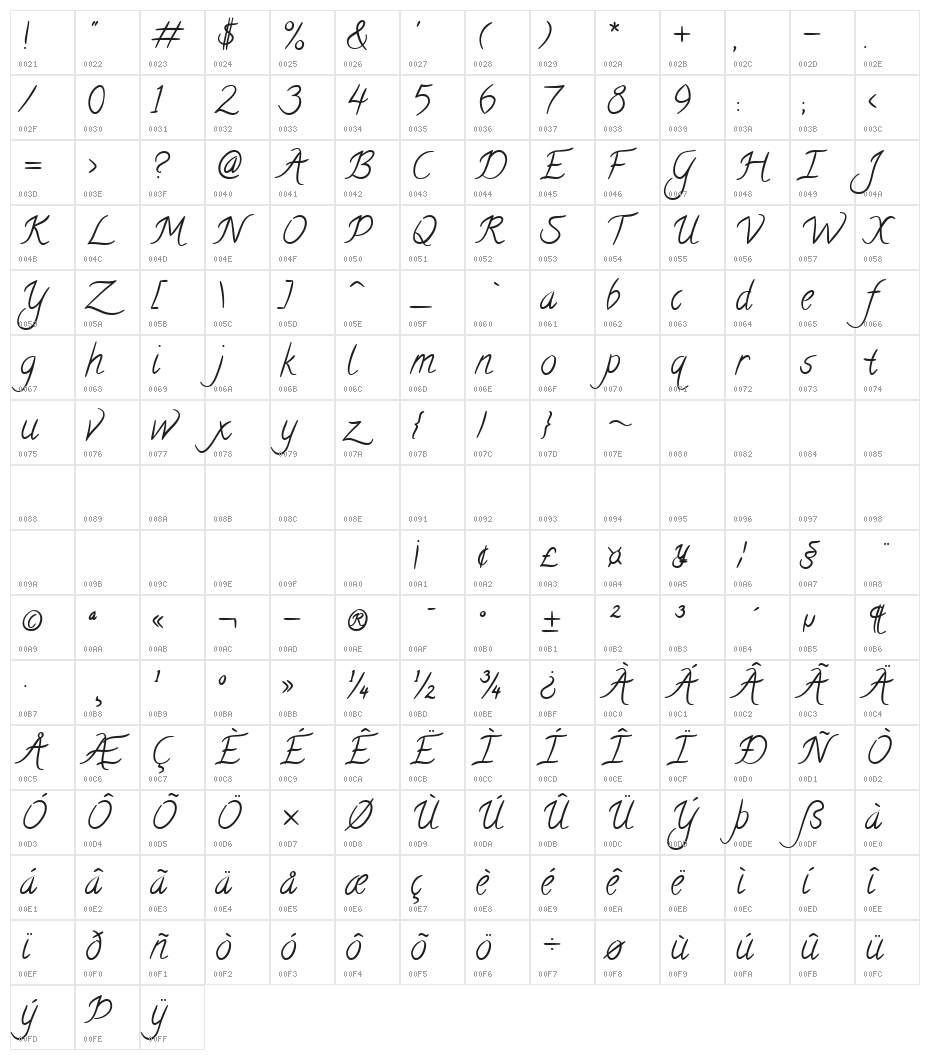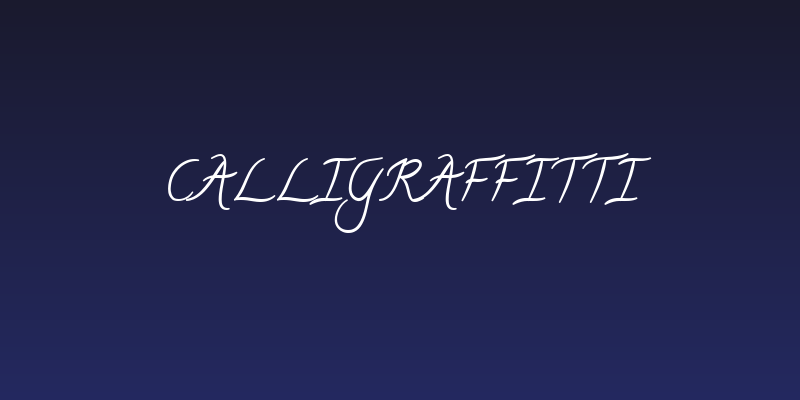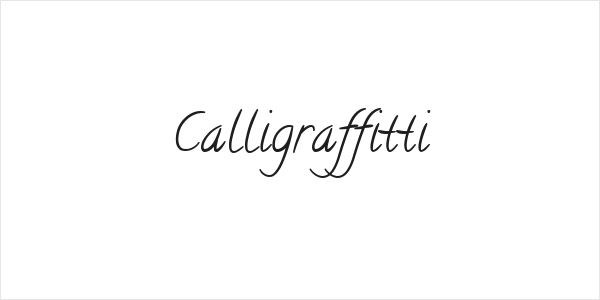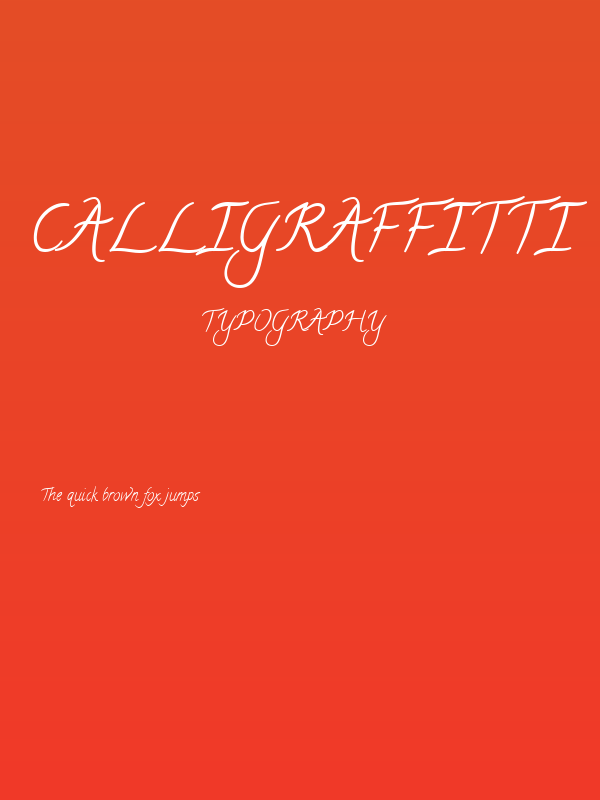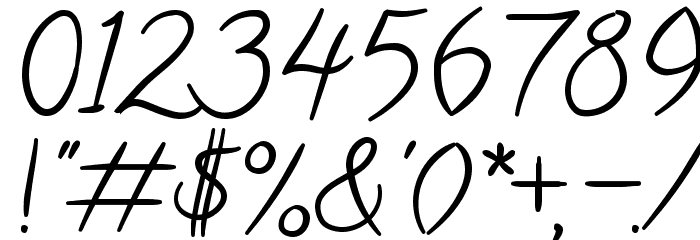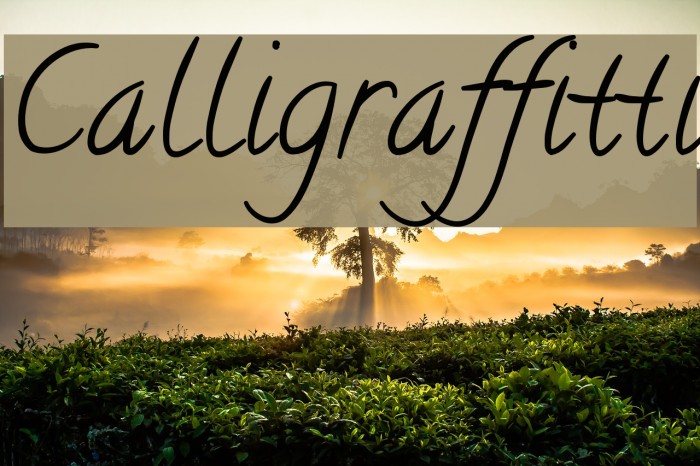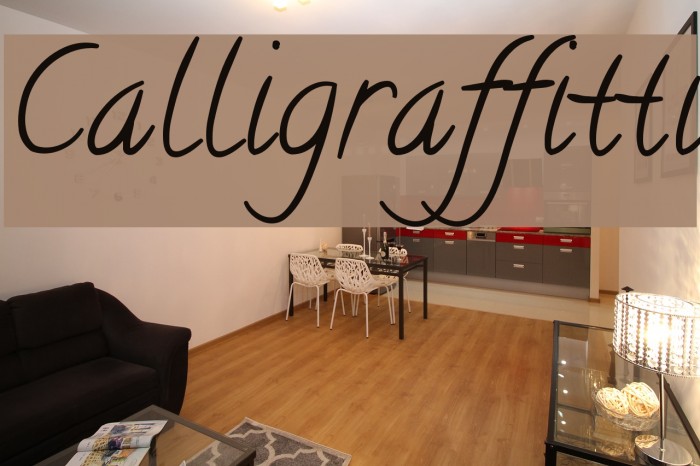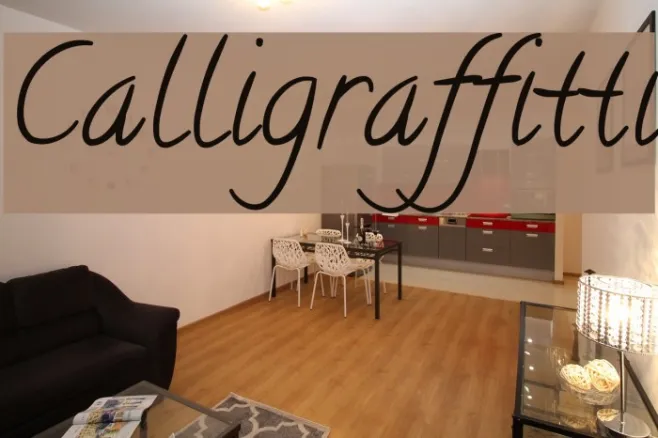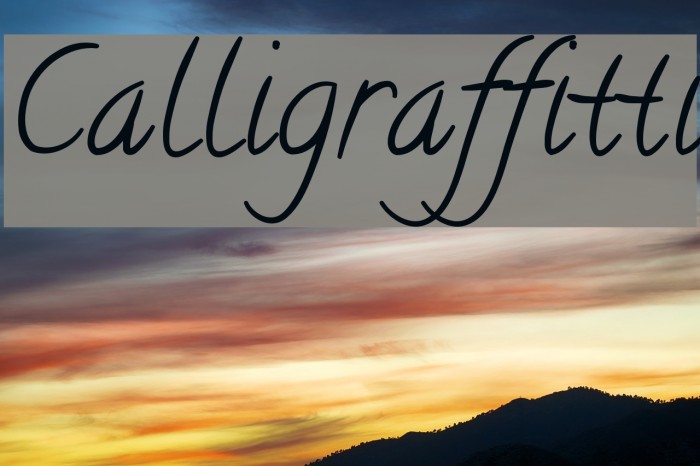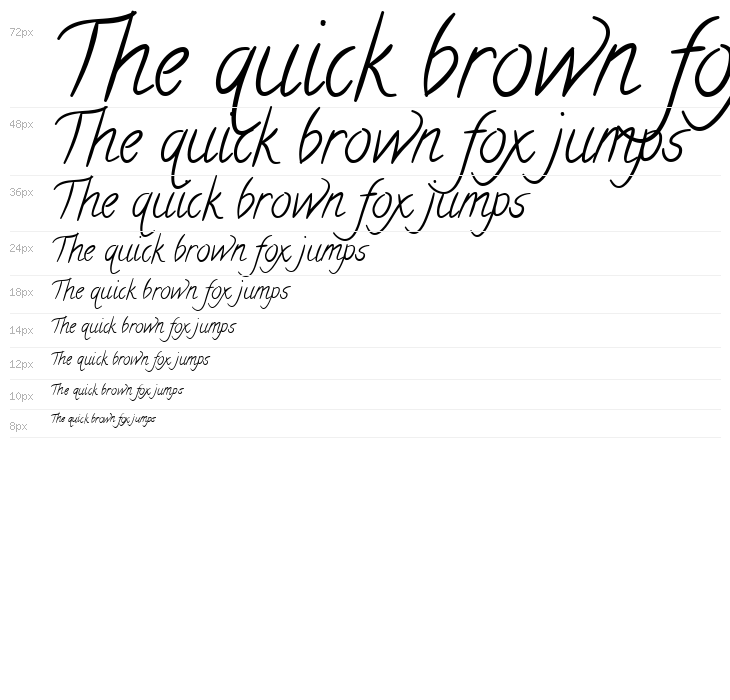
Calligraffitti Font
Calligraffitti Description
This font exudes a dynamic and artistic flair, reminiscent of traditional calligraphy with a modern twist. The letters are elegantly crafted with fluid strokes that mimic the flow of a calligrapher's pen. Each character maintains a consistent slant, adding to the sense of movement and grace. The uppercase letters are bold and striking, while the lowercase letters are more delicate, yet maintain a cohesive style. Numbers and special characters are designed with the same attention to detail, ensuring a harmonious appearance across all elements. This font is perfect for projects that require a touch of sophistication and creativity.
| Proposed Projects | Ideal for wedding invitations, artistic branding, elegant posters, and creative logos. |